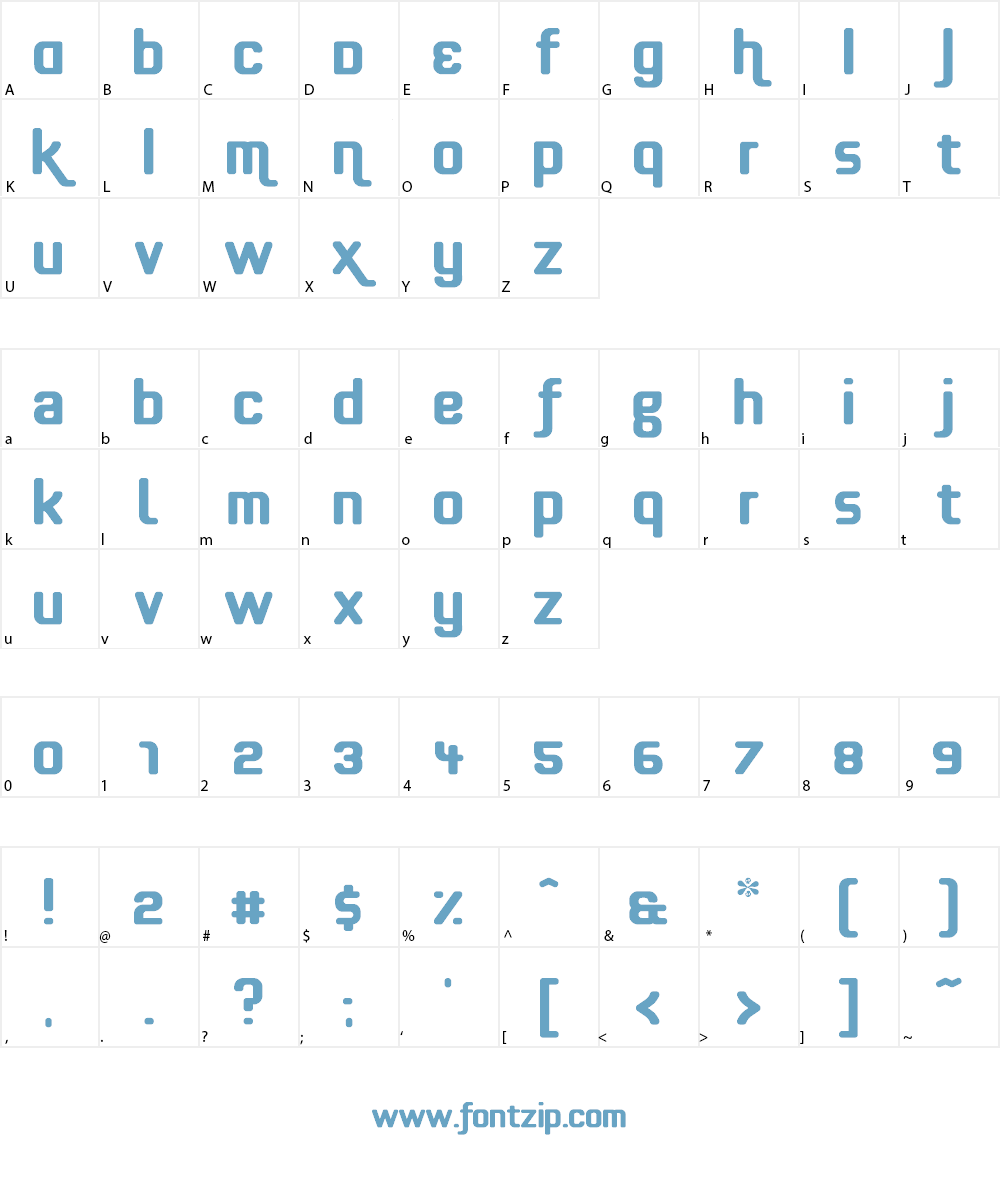
Another font made in one night. I wanted it to have a seventies space feel, like a font that would be used on something like a diner called 'Cafetaria Euro 2000 ', or on a vintage houseparty poster. It didn't come out as well as I would have liked, but maybe you can find a use for it anyway.